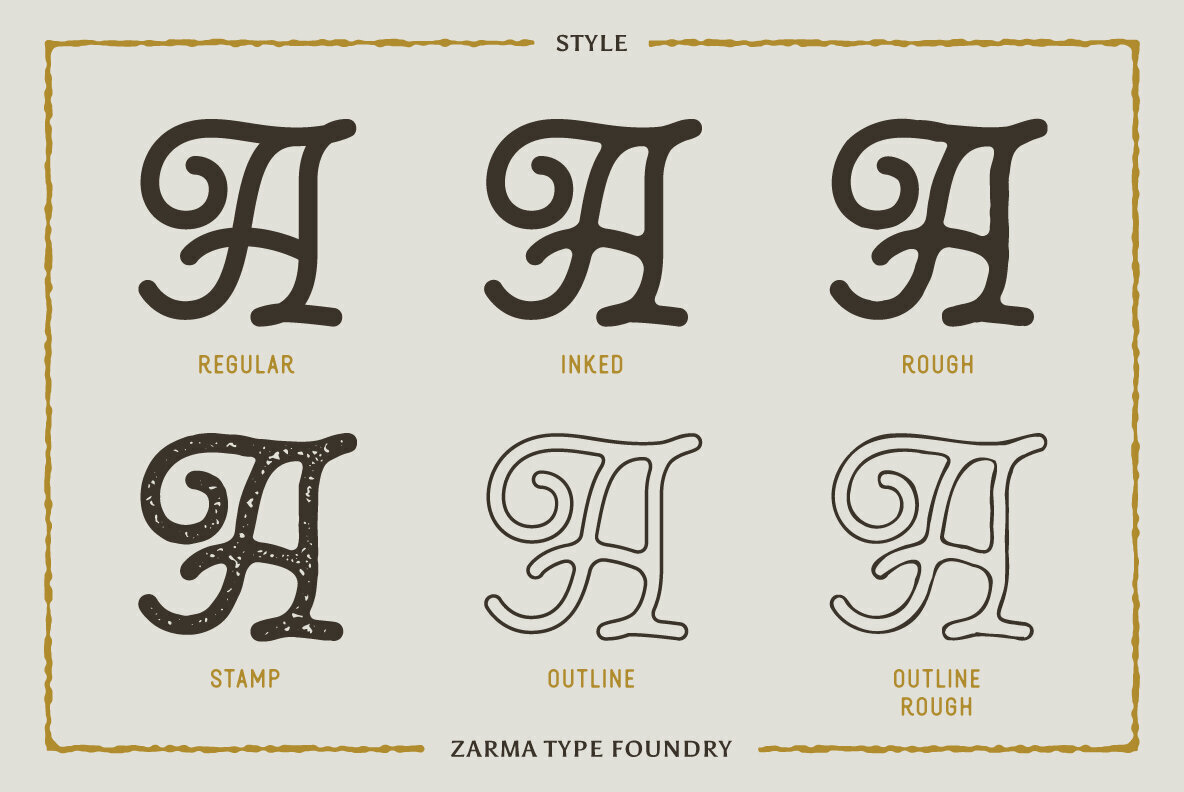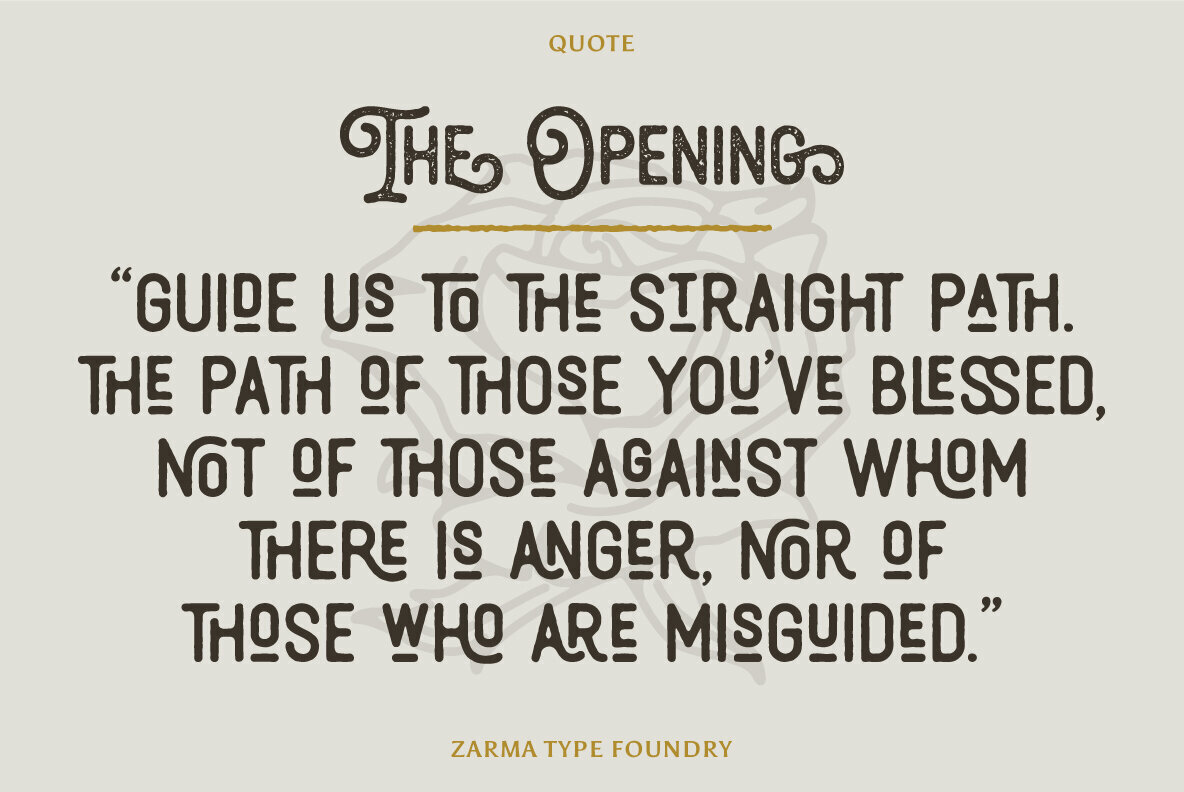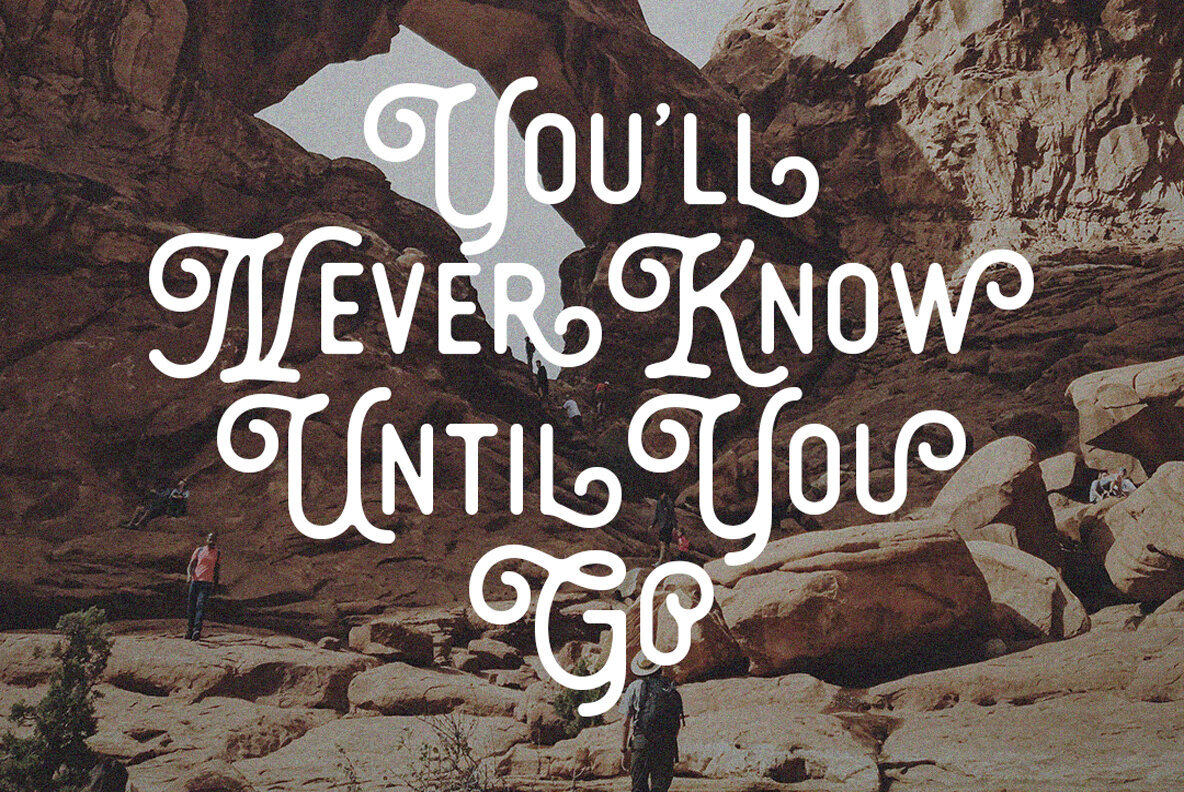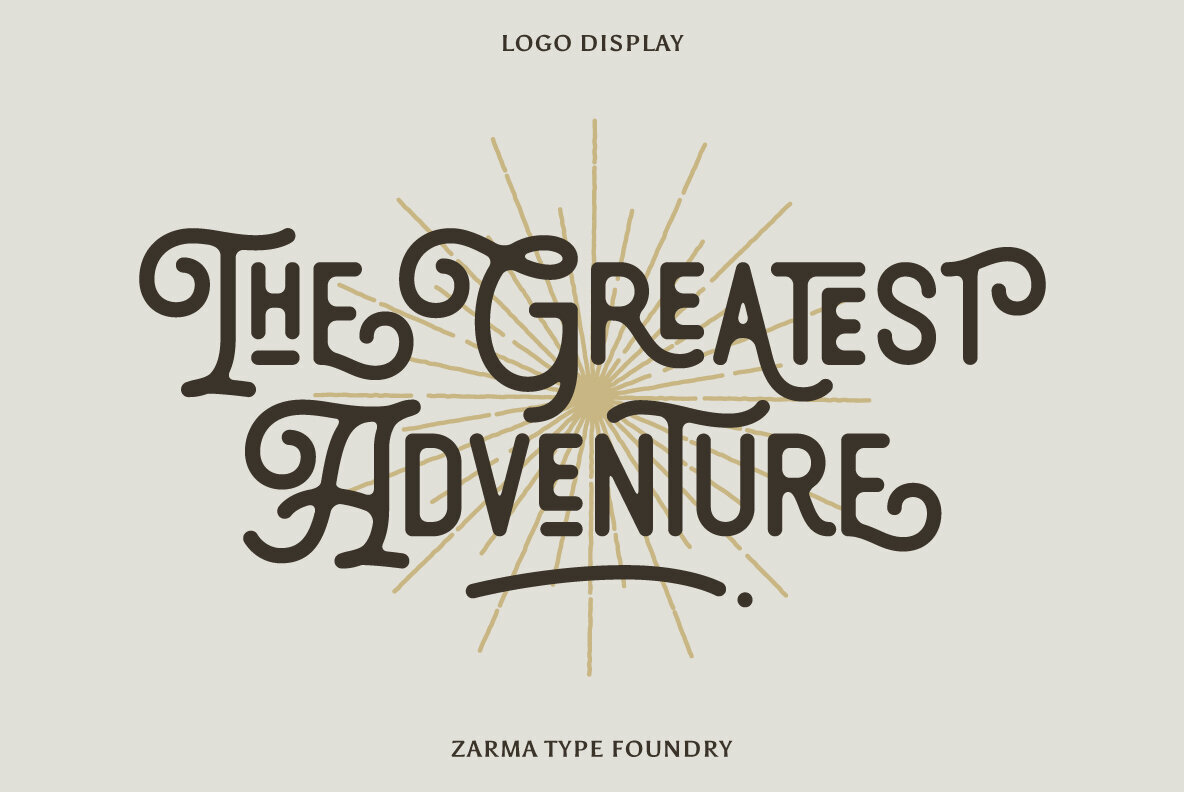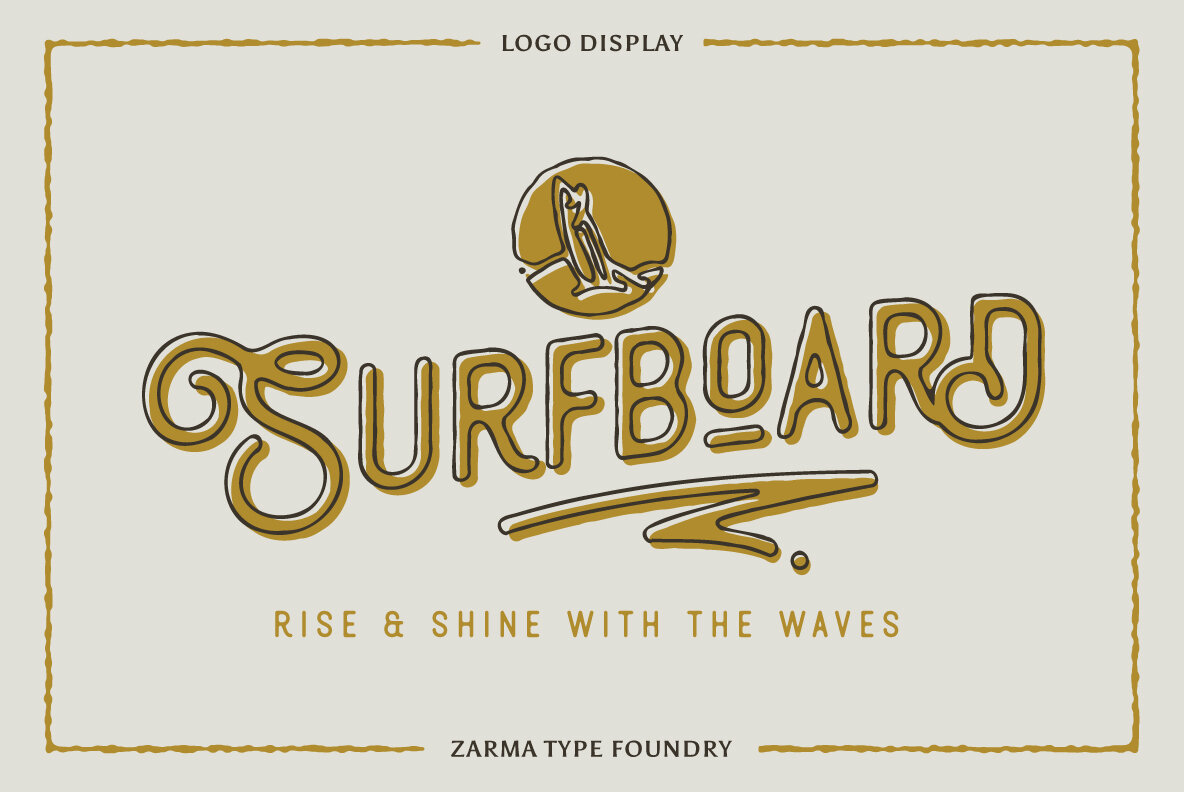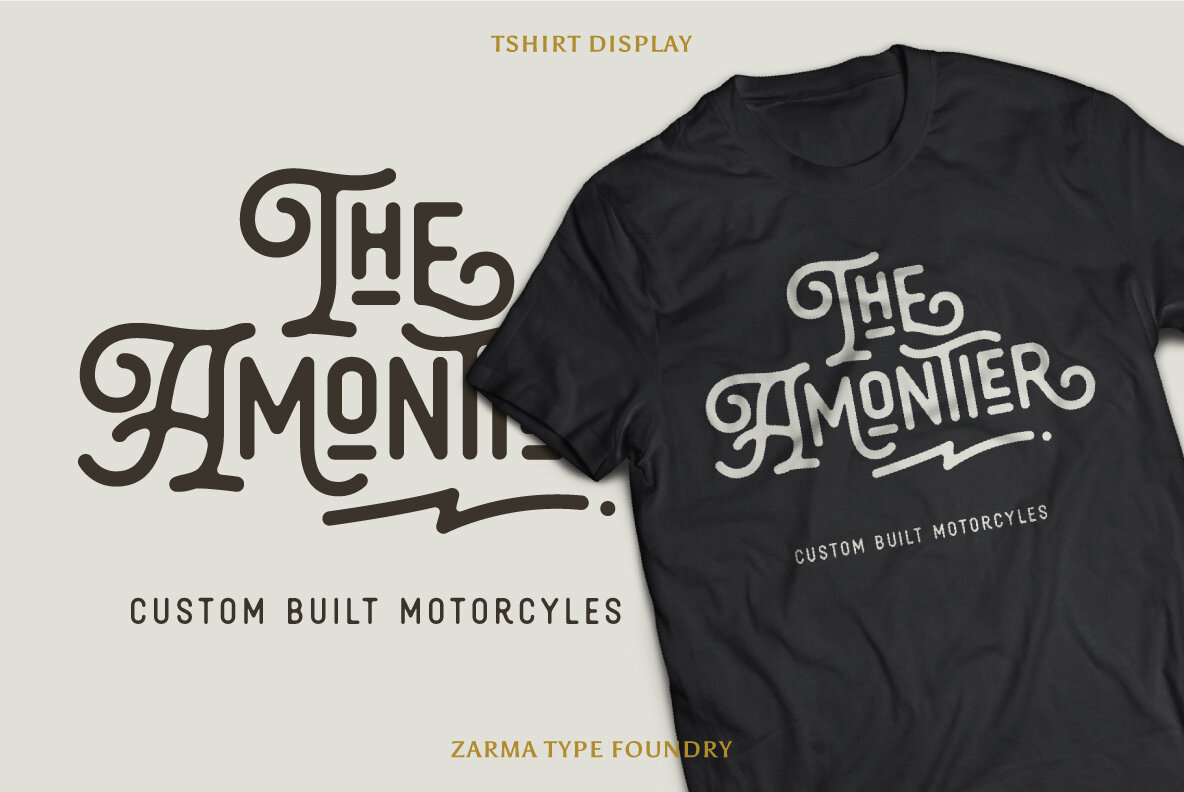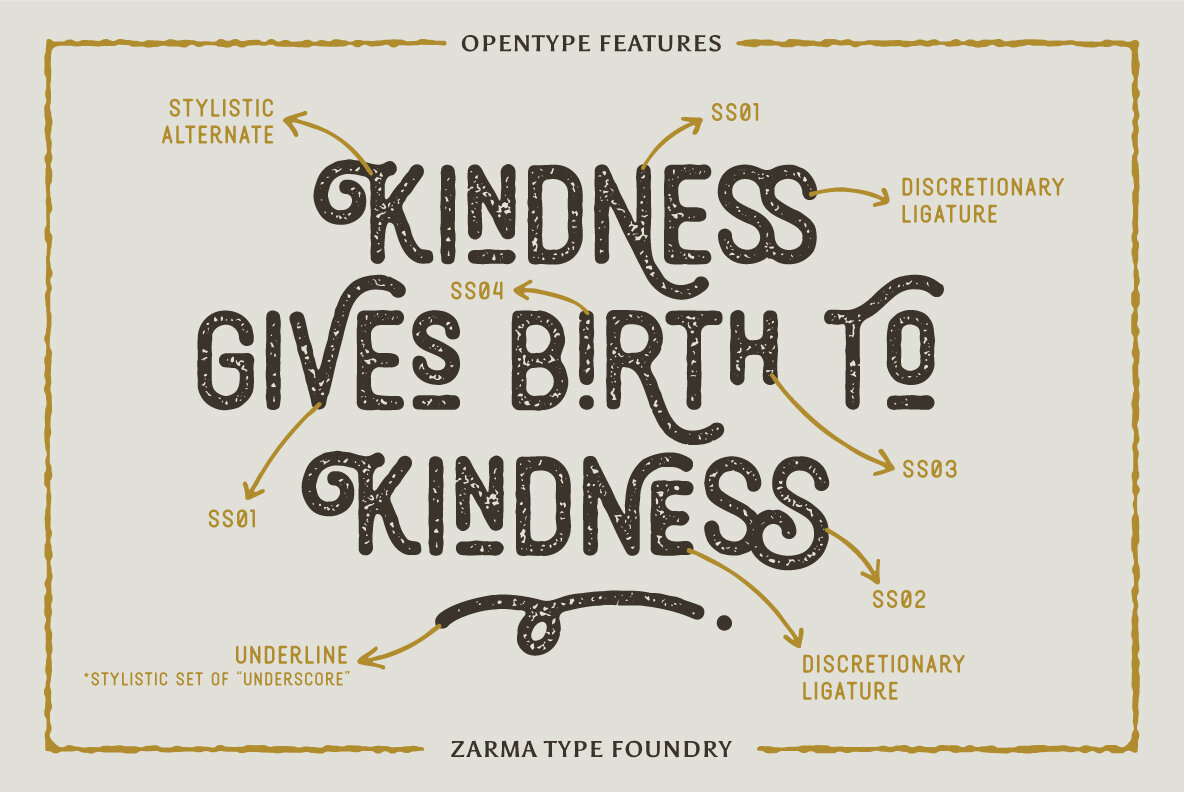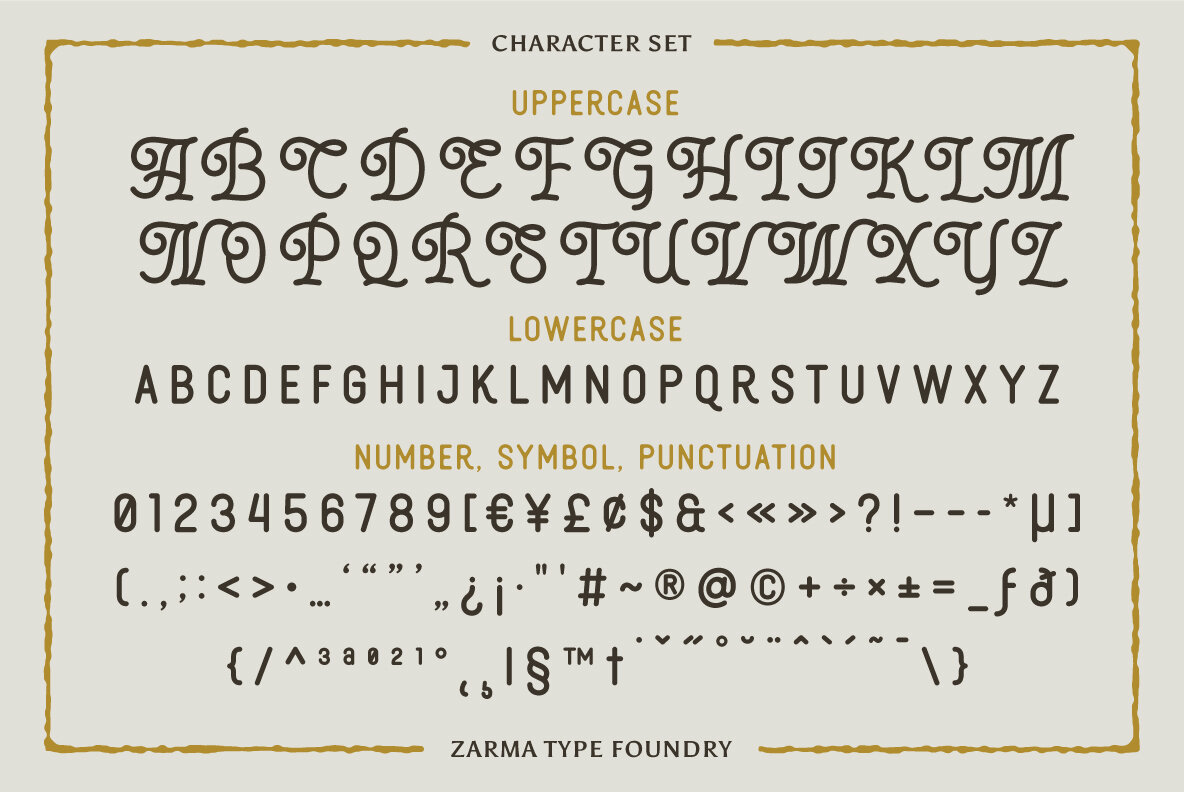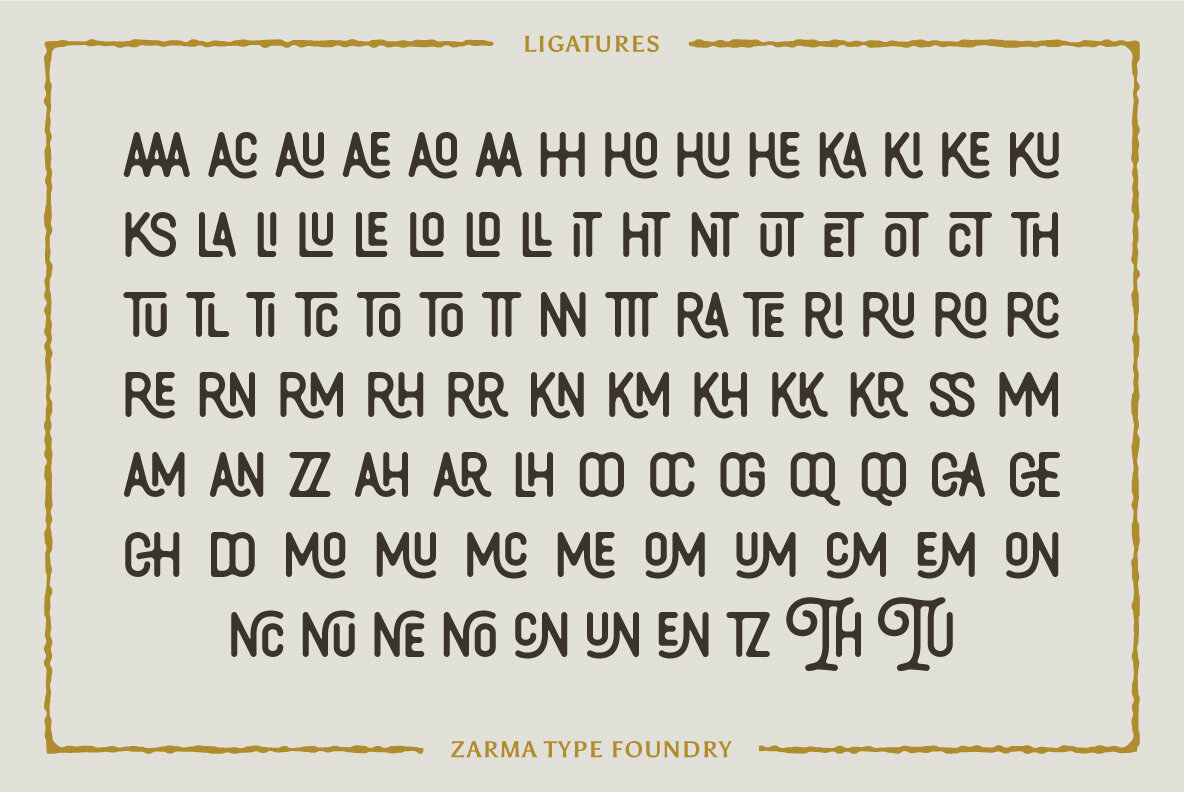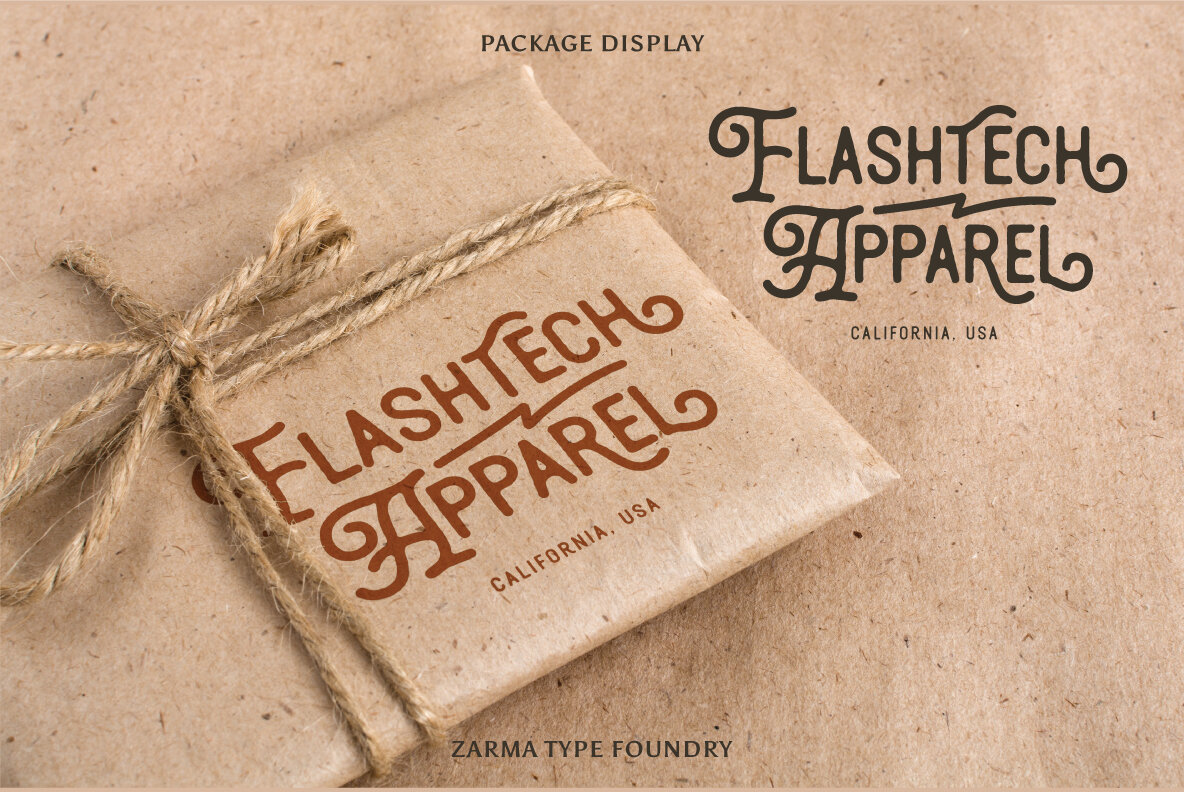
Thourenz Font
Thourenz Regular
Thourenz Inked
Thourenz Outline
Thourenz Outline Rough
Thourenz Rough
Thourenz Stamp
Thourenz, a monoline vintage typeface combining with the modern typography style. Thourenz comes with 6 style (Regular, Inked, Rough, Stamp, Outline, Outline Rough). It is perfect to create a beautiful vintage typography on your any project like t-shirt, merchandise, logo, label, poster, magazine, packaging, quotation and more.
Thourenz is all-caps font, has 500+ glyphs including many openType features and underlines that you can mix and match each character to get the more playful vintage design